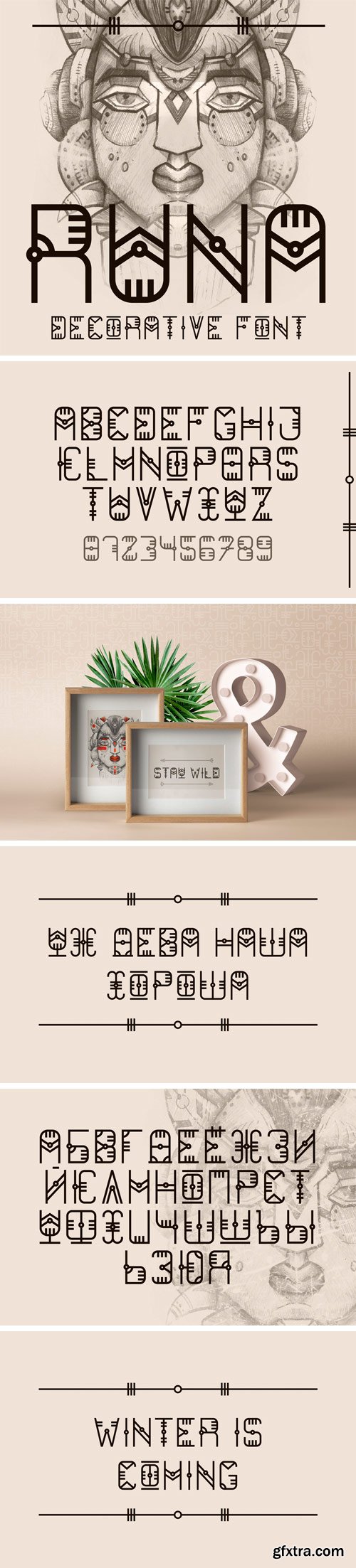
Runa Font
Runa is a decorative font inspired by ethnic typography. It contains all caps letters and numbers, support Latin and Cyrillic language. This font has a wild and tribal style. It can be a good for create themed text titles.